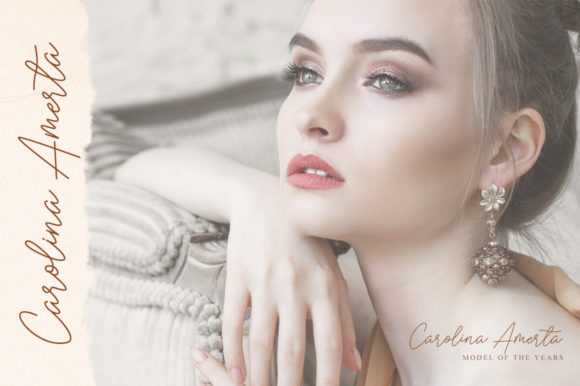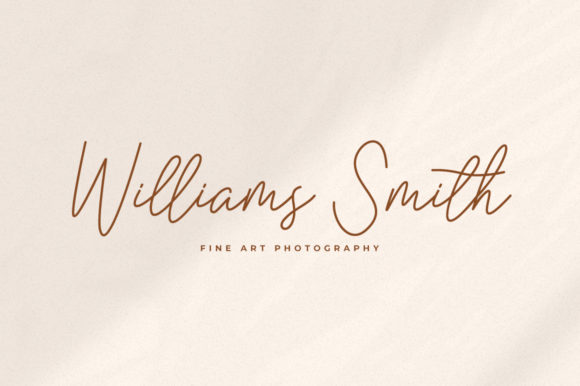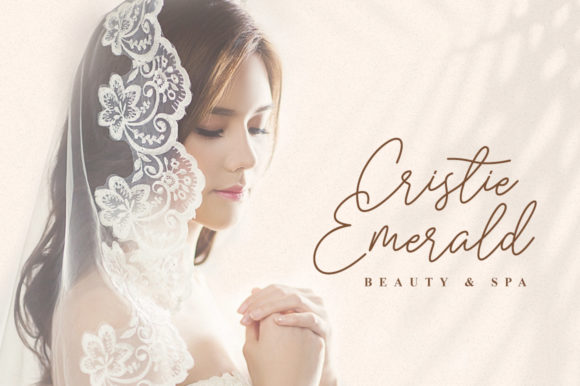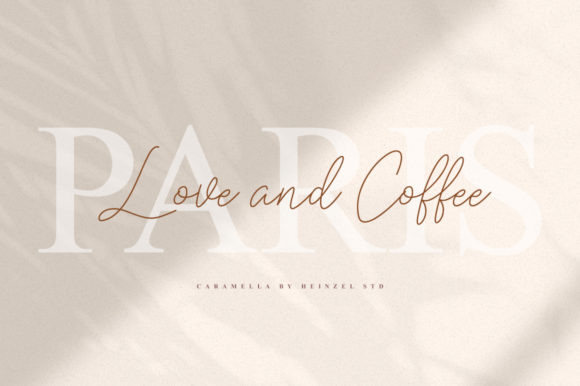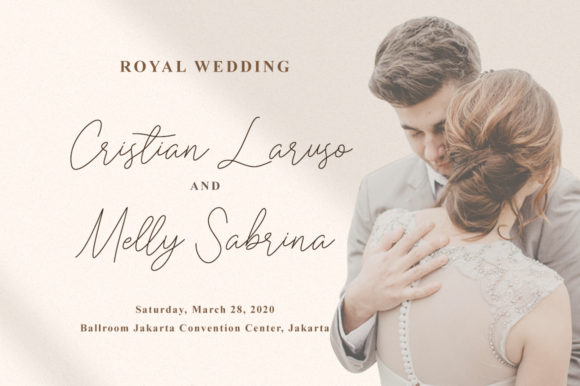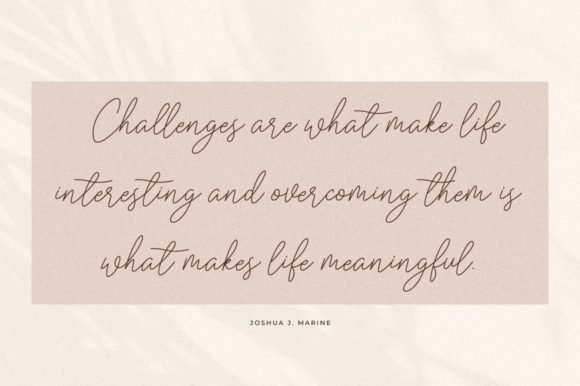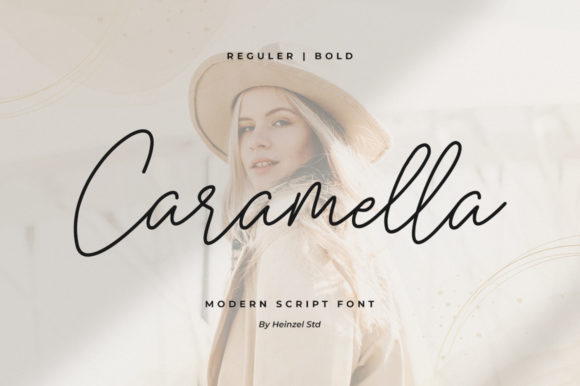
Discover the Elegance of Caramella Font: A Stunning Handwritten Script
Are you a designer or crafter looking for a font that embodies elegance and sophistication? Look no further than Caramella Font, a truly stunning handwritten script that simplifies elegance into one beautiful typeface. With its relaxed feel, Caramella is incredibly versatile and suitable for a wide range of design projects.
What is Caramella Font?
Caramella Font is a modern handwritten script that exudes elegance and refinement. Its unique letterforms are designed to convey a sense of luxury and sophistication, making it perfect for high-end designs. The font features flowing lines, subtle curves, and a relaxed feel that gives it a friendly and approachable tone.
The Versatility of Caramella Font
One of the standout features of Caramella Font is its versatility. Whether you’re designing a greeting card, wedding invitation, logo, or website title, Caramella is the perfect choice. Its elegant and refined aesthetic makes it suitable for a wide range of design projects, from formal events to everyday applications.
Use Caramella Font for:
• Greeting Cards: Create beautiful and elegant greeting cards for special occasions like birthdays, anniversaries, and holidays.
• Wedding Invitations: Make your wedding invitations truly unforgettable with Caramella Font’s elegant and refined script.
• Logos: Use Caramella Font to create stunning logos for your business or brand, adding a touch of sophistication and elegance.
• Website Titles: Elevate your website’s title with Caramella Font, making it stand out and leaving a lasting impression on your visitors.
• Social Media Graphics: Create engaging social media graphics, such as Facebook posts, Instagram stories, and Twitter headers, with Caramella Font’s elegant script.
Why Choose Caramella Font?
So, why choose Caramella Font over other fonts? Here are just a few reasons:
• Elegance: Caramella Font embodies elegance and sophistication, making it perfect for high-end designs.
• Versatility: Caramella Font is incredibly versatile and suitable for a wide range of design projects.
• Easy to Read: Despite its elegant script, Caramella Font is easy to read, making it perfect for body text and headlines.
• Unique: Caramella Font’s unique letterforms set it apart from other fonts, making your designs truly stand out.
Tips for Using Caramella Font
To get the most out of Caramella Font, here are a few tips:
• Pair with Simple Backgrounds: Pair Caramella Font with simple backgrounds to make it truly stand out.
• Experiment with Colors: Experiment with different colors to find the perfect combination that complements Caramella Font.
• Use for Headlines: Use Caramella Font for headlines and titles to add a touch of elegance and sophistication.
In conclusion, Caramella Font is a truly stunning handwritten script that simplifies elegance into one beautiful typeface. With its relaxed feel and versatile aesthetic, Caramella is perfect for a wide range of design projects, from greeting cards to website titles. Whether you’re a designer or crafter, Caramella Font is a must-have in your font collection.